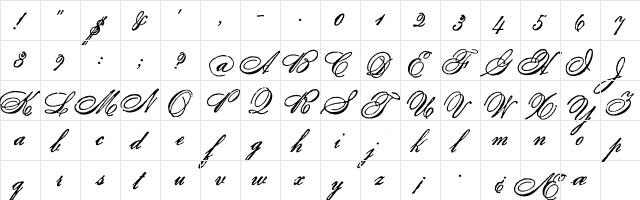
Archive Penman Script Regular
| Foundry | Archive Type |
| Designer | Archive Type |
Design Context for Archive Penman Script Typeface
Archive Penman Script flows with the natural rhythm of handwritten lettering, making it ideal for designs that call for warmth and personal expression.
Font Pairing: Combine Archive Penman Script with a simple geometric sans for maximum contrast — the tension between flowing curves and clean structure is a classic typographic pairing.
Pro Tip: Pair Archive Penman Script with a clean sans-serif for supporting text. The contrast between fluid script and geometric structure creates an elegant typographic hierarchy.